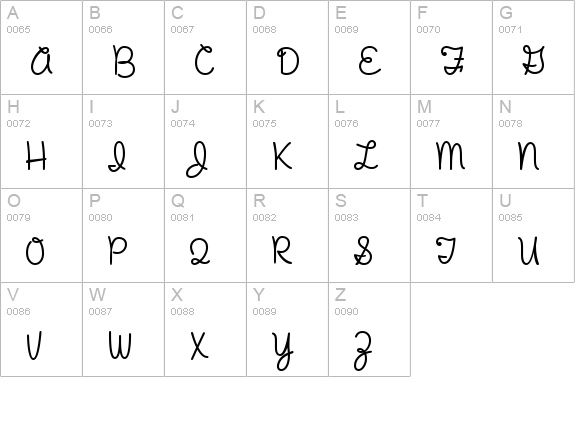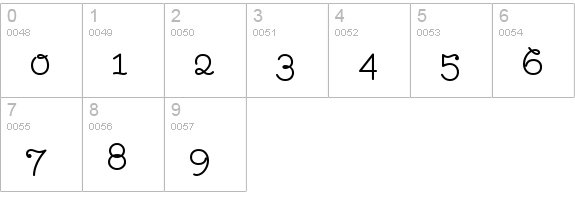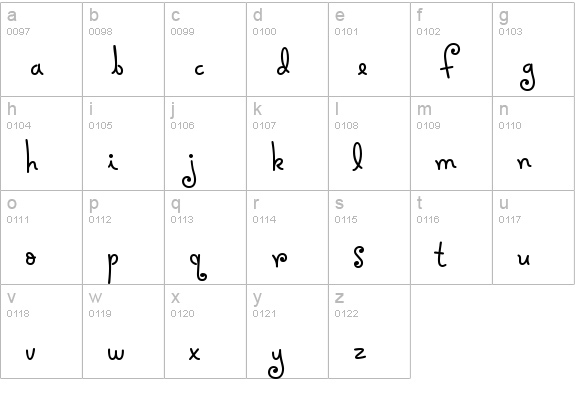
Holiday Springs BTN Font Details
Holiday Springs BTN font is a timeless and elegant typeface that exudes a sense of warmth and holiday cheer. With its flowing lines and delicate curves, this font is perfect for adding a touch of whimsy to your designs. Whether you're creating holiday cards, invitations, or festive banners, Holiday Springs BTN will surely make your text stand out. The best part? Holiday Springs BTN font is completely free to download at FontsMarket.com. So go ahead and add a festive touch to your projects with this beautiful and versatile font. Let your creativity shine with Holiday Springs BTN!